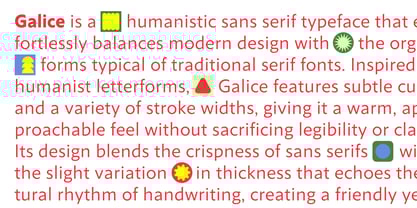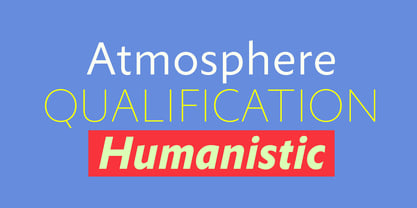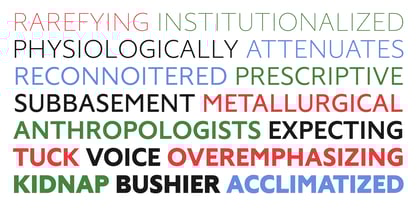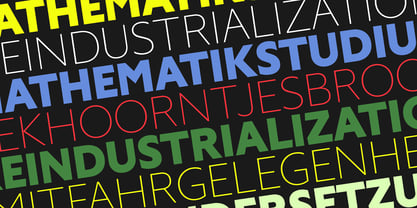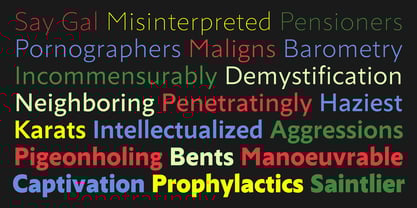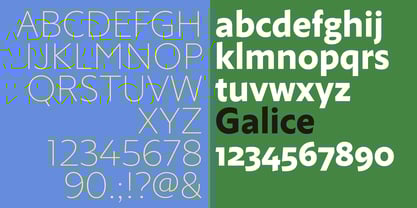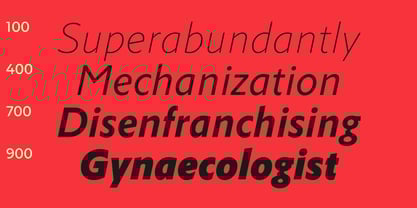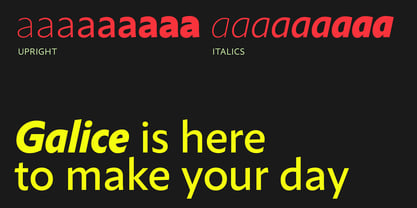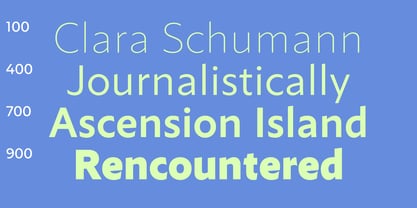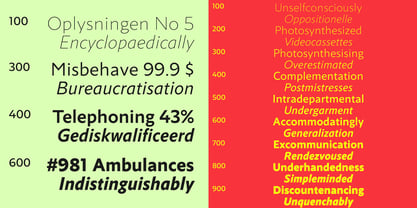
Galice Variable
by Blaze Type
The Galice Variable Font Family was designed by Karol Mularczyk and published by Blaze Type. Galice Variable contains 1 styles. More about this family
Galice is a humanistic sans serif typeface that effortlessly balances modern design with the organic forms typical of traditional serif fonts. Inspired by humanist letterforms, Galice features subtle curves and a variety of stroke widths, giving it a warm, approachable feel without sacrificing legibility or clarity. Its design blends the crispness of sans serifs with the slight variation in thickness that echoes the natural rhythm of handwriting, creating a friendly yet professional appearance.
Unlike purely geometric sans serifs, which can sometimes appear mechanical, Galice's softer edges and more dynamic structure add a sense of flow and personality to its letterforms. Its subtle curves allow for a more inviting and legible design, making it highly adaptable across a range of applications—from body text to display use. Whether in print or on screen, Galice remains highly readable at various sizes, offering a natural reading experience that maintains its grace and coherence in all types of media.
The font is characterized by its refined yet uncomplicated design. The overall feel is contemporary but with a touch of warmth, making it suitable for diverse contexts, including editorial design, corporate branding, web interfaces, and advertising. Galice's flexibility makes it an excellent choice for projects requiring a human-centered, modern aesthetic, without the harshness often associated with more geometric sans serif fonts.
Designers: Karol Mularczyk
Current Foundry: Blaze Type